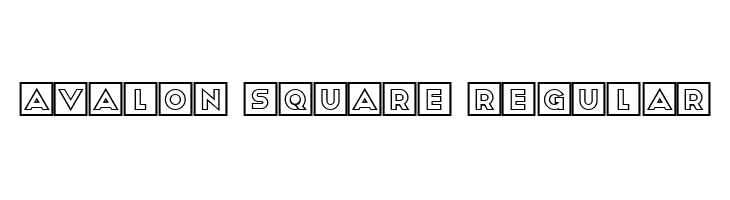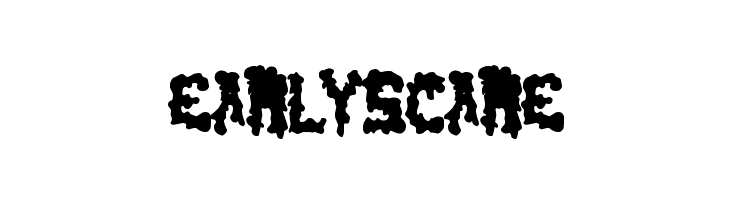
A bold, geometric font with characters enclosed in squares, offering a modern and structured look.
A playful, bold handwritten font with rounded strokes and a casual style.
A bold, edgy font with jagged strokes and a distressed, splattered ink effect.
A graceful script font with flowing curves and high contrast, perfect for elegant designs.
A playful handwritten font with smooth, rounded strokes and a casual style.
A playful, hand-drawn script font with a whimsical and textured appearance.
A playful, handwritten font with bold, irregular strokes and a casual, energetic style.
A bold, hand-drawn font with a playful and organic style.